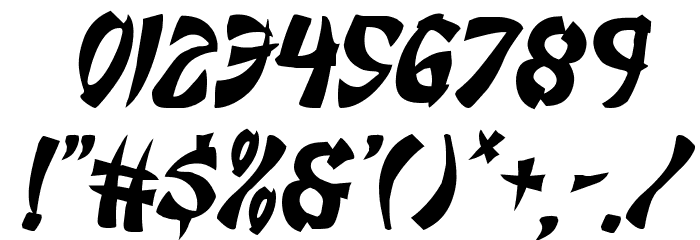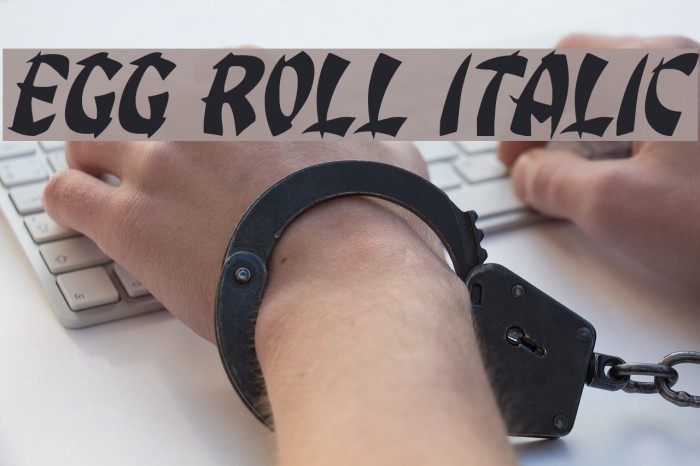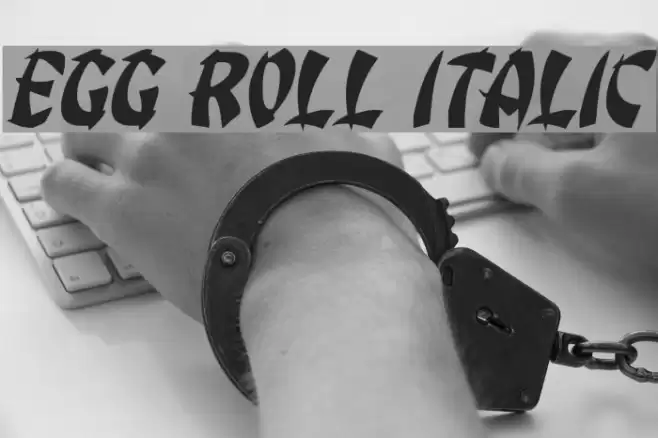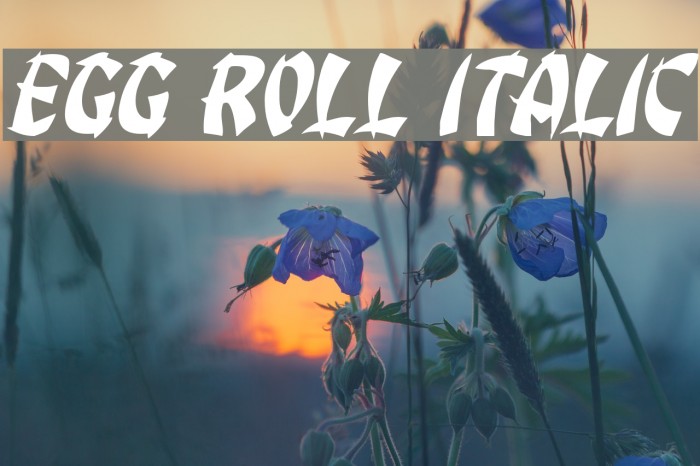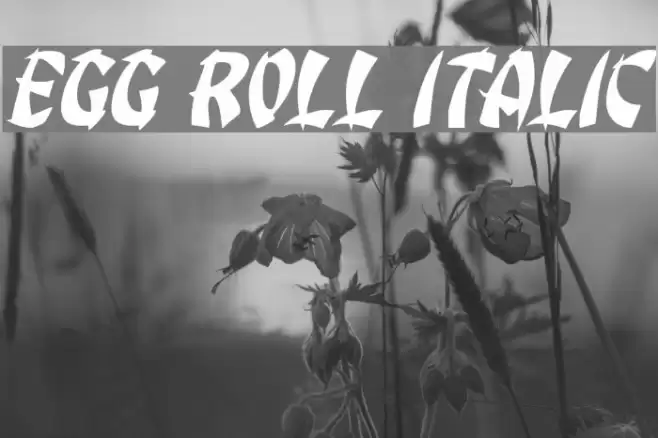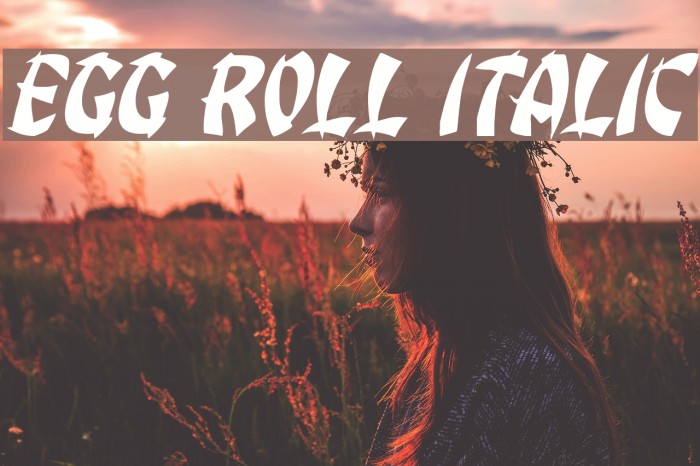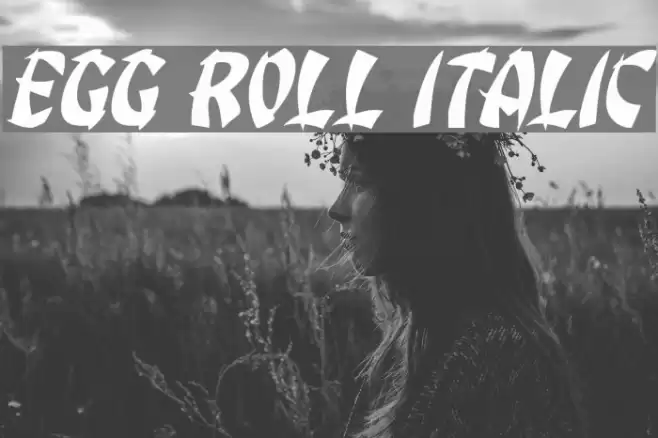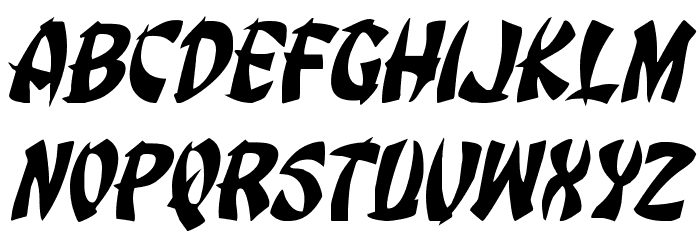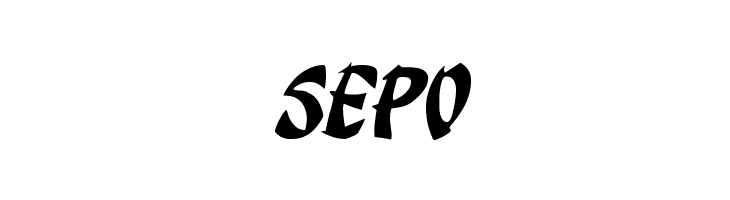
Egg Roll Italic Font
Egg Roll Italic Description
This font features a bold and dynamic style with a strong italic slant, giving it a sense of movement and energy. The characters are thick and robust, with sharp edges and angular forms that create a striking visual impact. The uppercase and lowercase letters maintain a consistent style, with exaggerated curves and pointed terminals. Numbers and special characters follow the same bold and angular design, ensuring uniformity across all elements. The overall appearance is both modern and edgy, making it suitable for attention-grabbing designs.
A bold, italic font with sharp, angular forms and dynamic energy from Uncategorized fonts.
• Proposed Projects: Ideal for posters, logos, and branding projects that require a bold and energetic typeface.
• Contrast: High
• Overall Style: Modern
• Use Case: Headlines, Logos